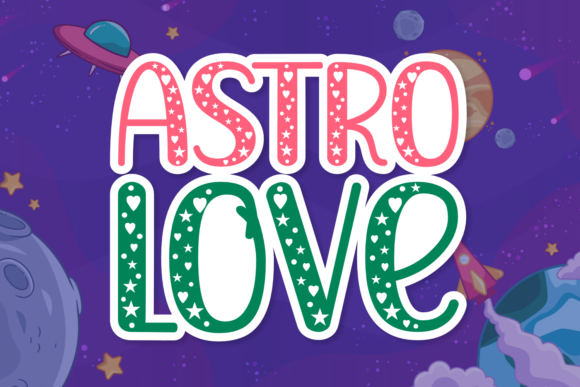
Astro Love Font: A Cosmic and Playful Typeface for Creative Projects
Are you looking for a font that can add a touch of whimsy and fun to your creative projects? Look no further than the Astro Love Font. This decorative and playful font is out of this world, featuring tall characters with a cartoon-inspired look that’s sure to delight. In this article, we’ll explore the features and benefits of the Astro Love Font, and discuss how it can be used in a variety of creative projects.
What is Astro Love Font?
Astro Love Font is a unique and eye-catching typeface that’s perfect for adding a touch of personality to your designs. The font features tall characters with a cartoon-inspired look, complete with pretty stars, hearts, and dots inside the font’s character set. This makes it an ideal choice for projects that require a playful and whimsical touch.
Key Features of Astro Love Font
- Decorative and Playful: Astro Love Font is a decorative and playful font that’s perfect for adding a touch of fun to your designs.
- Tall Characters: The font features tall characters that are sure to stand out in any design.
- Cartoon-Inspired Look: The font has a cartoon-inspired look that’s reminiscent of childhood favorites.
- Stars, Hearts, and Dots: The font’s character set includes pretty stars, hearts, and dots that add an extra touch of whimsy.
Uses for Astro Love Font
Astro Love Font is a versatile typeface that can be used in a variety of creative projects. Here are some ideas to get you started:
Project Ideas for Astro Love Font
- Wall Art: Use Astro Love Font to create eye-catching wall art that’s perfect for kids’ rooms or nurseries.
- Kids’ Room Decorations: The font is perfect for creating fun and playful decorations for kids’ rooms, such as alphabet charts or inspirational quotes.
- Children’s Books: Astro Love Font is an ideal choice for children’s books, adding a touch of whimsy and fun to your storytelling.
- Fashion Branding: The font’s playful and decorative style makes it perfect for fashion branding, particularly for kids’ or young adults’ clothing lines.
- Posters: Use Astro Love Font to create eye-catching posters for events, promotions, or social media campaigns.
- Quotes: The font is perfect for creating inspirational or motivational quotes that are sure to stand out.
Benefits of Using Astro Love Font
There are many benefits to using Astro Love Font in your creative projects. Here are a few:
Benefits of Astro Love Font
- Unique and Eye-Catching: Astro Love Font is a unique and eye-catching typeface that’s sure to stand out in any design.
- Playful and Whimsical: The font’s playful and whimsical style is perfect for adding a touch of fun to your designs.
- Versatile: Astro Love Font can be used in a variety of creative projects, from wall art to children’s books.
- Easy to Read: Despite its decorative style, Astro Love Font is easy to read, making it perfect for use in quotes, posters, and other designs.
Tips for Using Astro Love Font
Here are a few tips for using Astro Love Font in your creative projects:
Tips for Using Astro Love Font
- Use it Sparingly: While Astro Love Font is eye-catching, it can be overwhelming if used too much. Use it sparingly to add a touch of whimsy to your designs.
- Pair it with Other Fonts: Astro Love Font pairs well with other fonts, particularly sans-serif fonts. Experiment with different pairings to find the perfect combination.
- Experiment with Colors: The font’s playful style lends itself well to bright and bold colors. Experiment with different color combinations to find the perfect look for your design.
Astro Love Font is a unique and eye-catching typeface that’s perfect for adding a touch of whimsy and fun to your creative projects. With its decorative and playful style, tall characters, and cartoon-inspired look, it’s an ideal choice for a variety of projects, from wall art to children’s books. By following the tips outlined in this article, you can make the most of Astro Love Font and create designs that are truly out of this world.